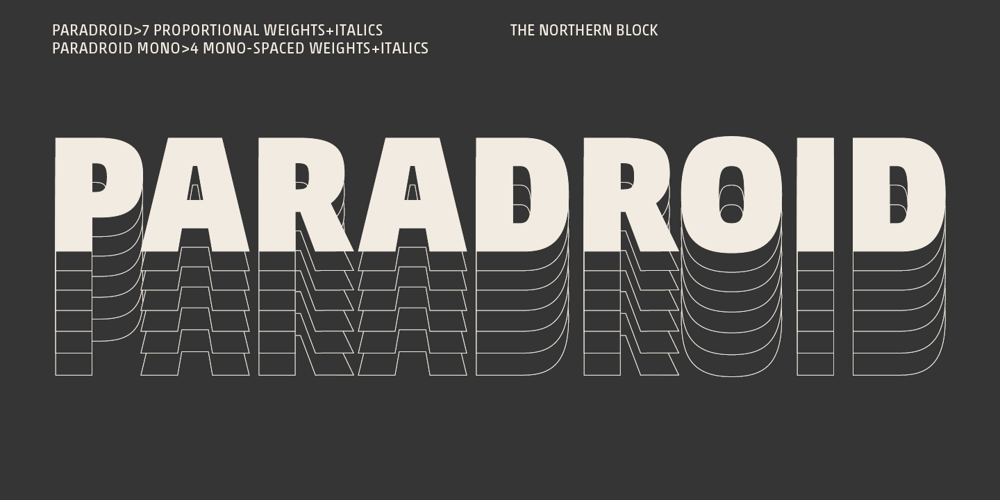
Paradroid Font Family was designed by Jonathan Hill and published by The Northern Block. Paradroid contains 22 styles and family package options. Paradroid is a versatile sans-serif typeface that balances elements from both grotesque and geometric styles. Positioned at the intersection of these two typographic approaches, Paradroid combines the best of both worlds: the humanist touch and legibility of grotesque typefaces with the clean, structured forms of geometric designs. This fusion results in a type family that is neutral and modern, making it highly functional and easy to read across various applications. Its subtle design ensures clarity and legibility without drawing undue attention, making it ideal for a wide range of uses where readability and subtlety are paramount.Details include seven proportionally spaced weights and four monospaced weights, both with matching italics, 750 characters with an alternative lowercase a and g, and twelve variations of numerals with stylistic zeros. OpenType features consist of inferiors, superiors, fractions, case-sensitive punctuation, and language support covering Western, Southern, Central Europe, and Vietnamese.